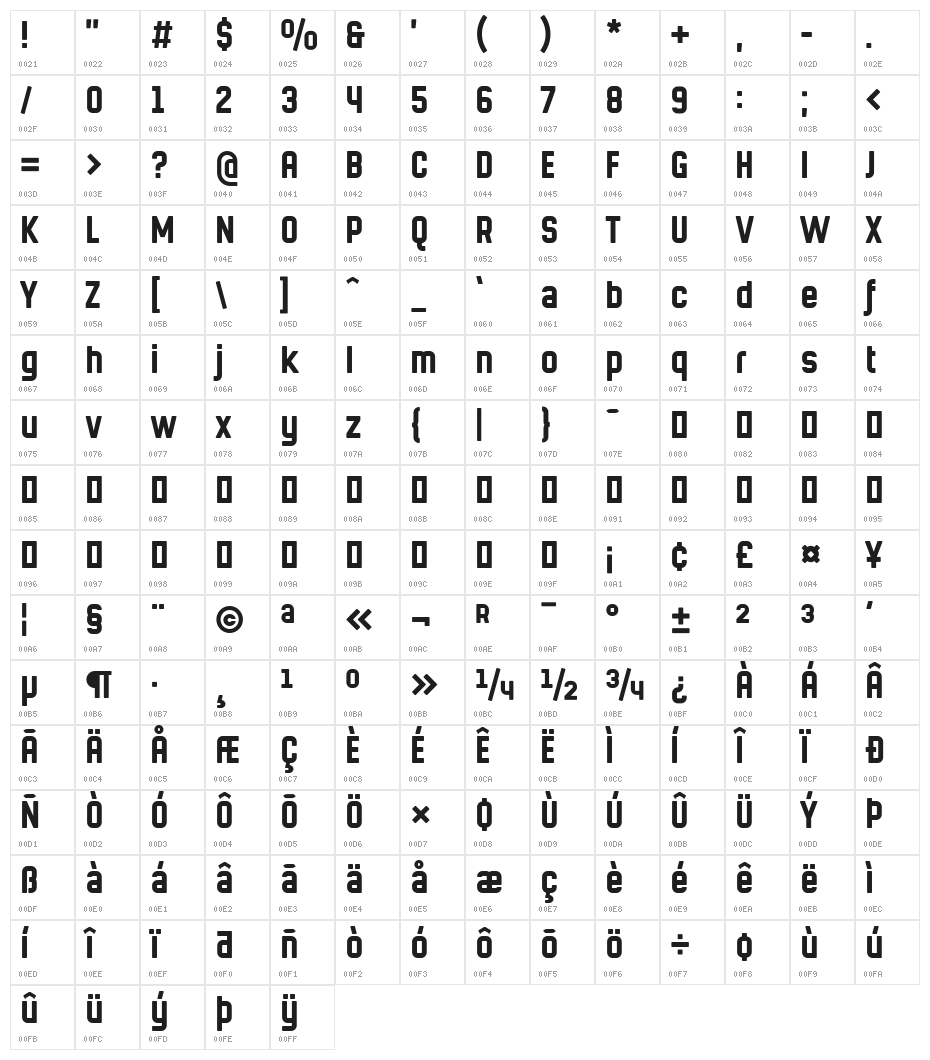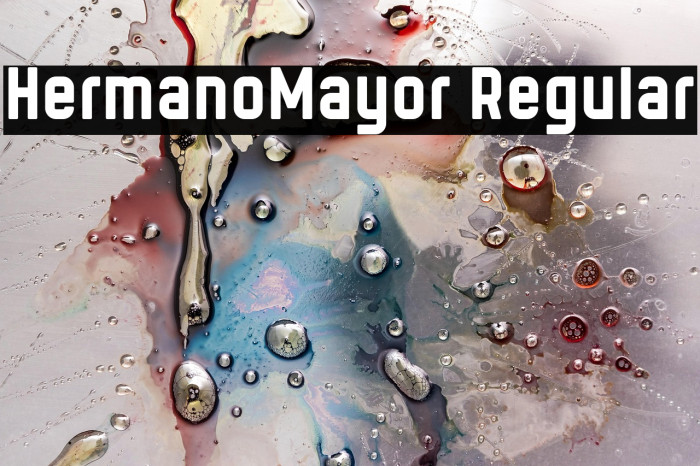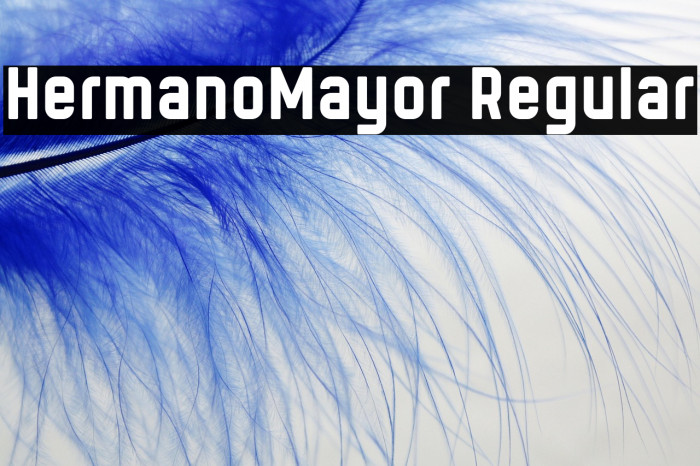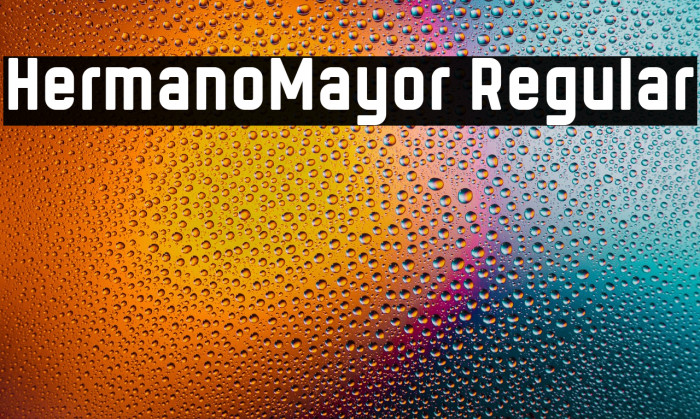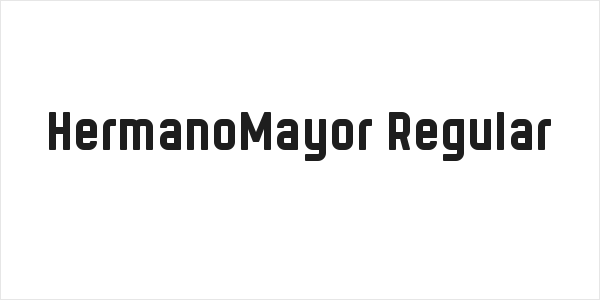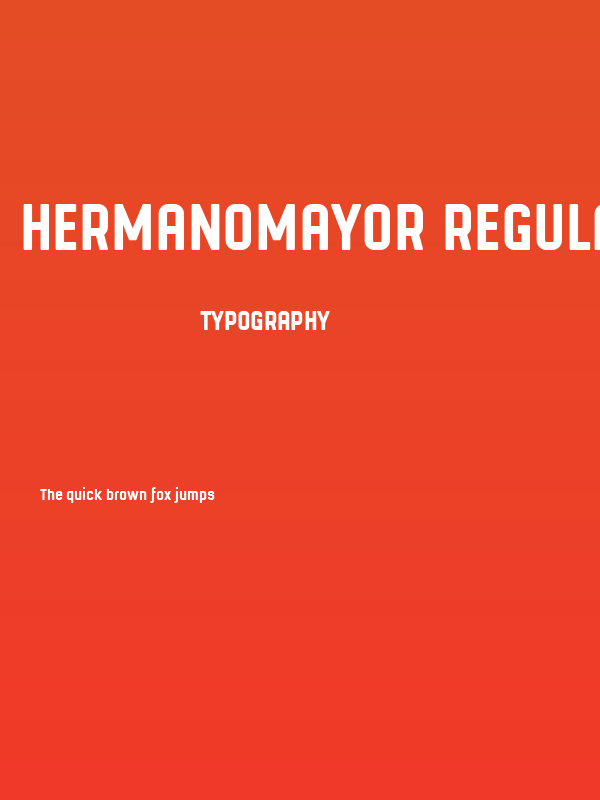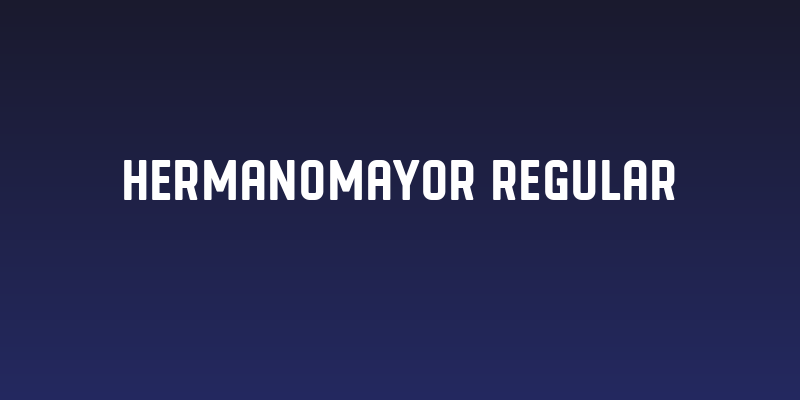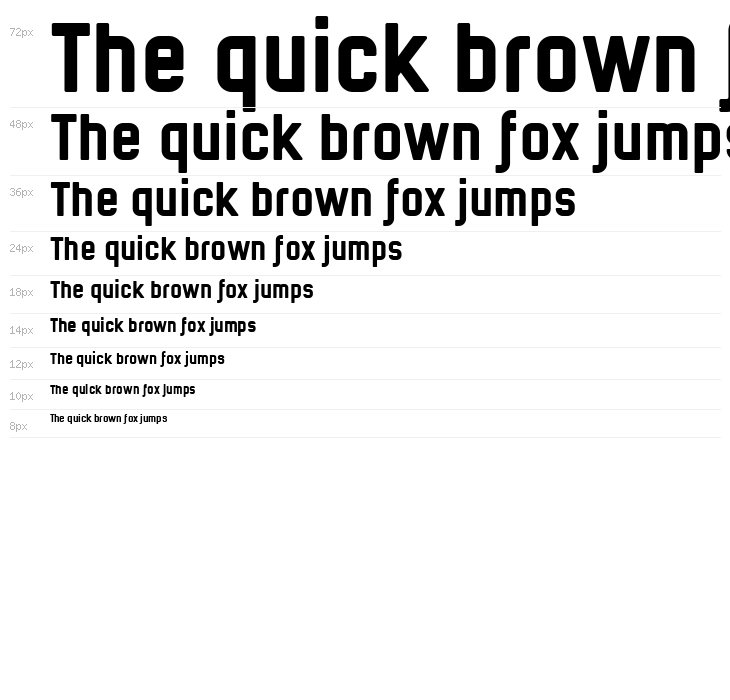
HermanoMayor Regular Font
HermanoMayor Regular Description
This font features a bold and modern design with clean, geometric lines and a strong presence. The uppercase and lowercase letters maintain a consistent height and width, creating a uniform appearance. The numerals are equally bold, ensuring readability and impact. The special characters are well-integrated, matching the overall style of the font. Its solid structure and contemporary feel make it suitable for various design applications, from digital to print media.
| Proposed Projects | Ideal for branding, headlines, posters, and digital media where a strong, modern impact is desired. |